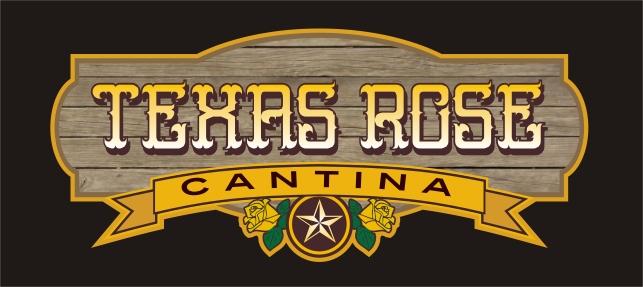
Very attractive western style, those terminals are perfect.
Great western font. I like it, and I like your samples too!
Congratulations! FontStruct Staff have deemed your FontStruction worthy of special mention. “Texas Rose” is now a Top Pick.